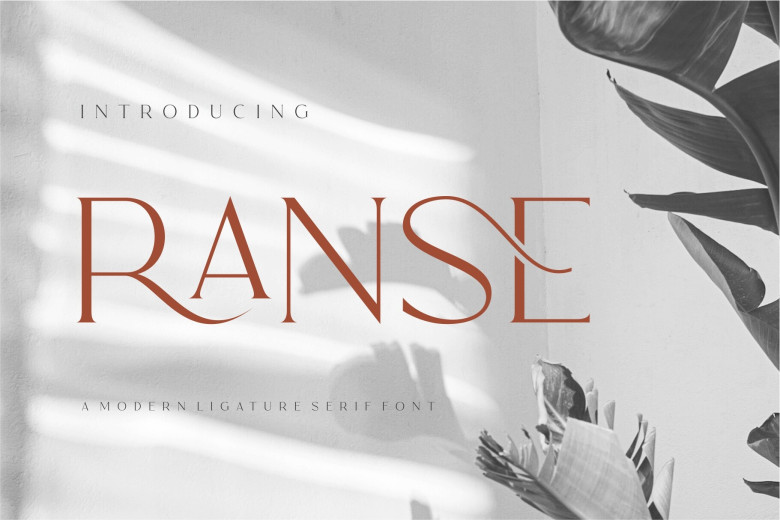
Ranse Font
Ranse font is a serif ligature font inspired by minimalist logo design, perfect for designing templates brochures, videos, logos, branding, advertising branding invitations layout designing exquisite crafting beautiful design etc.
Ranse Serif Font